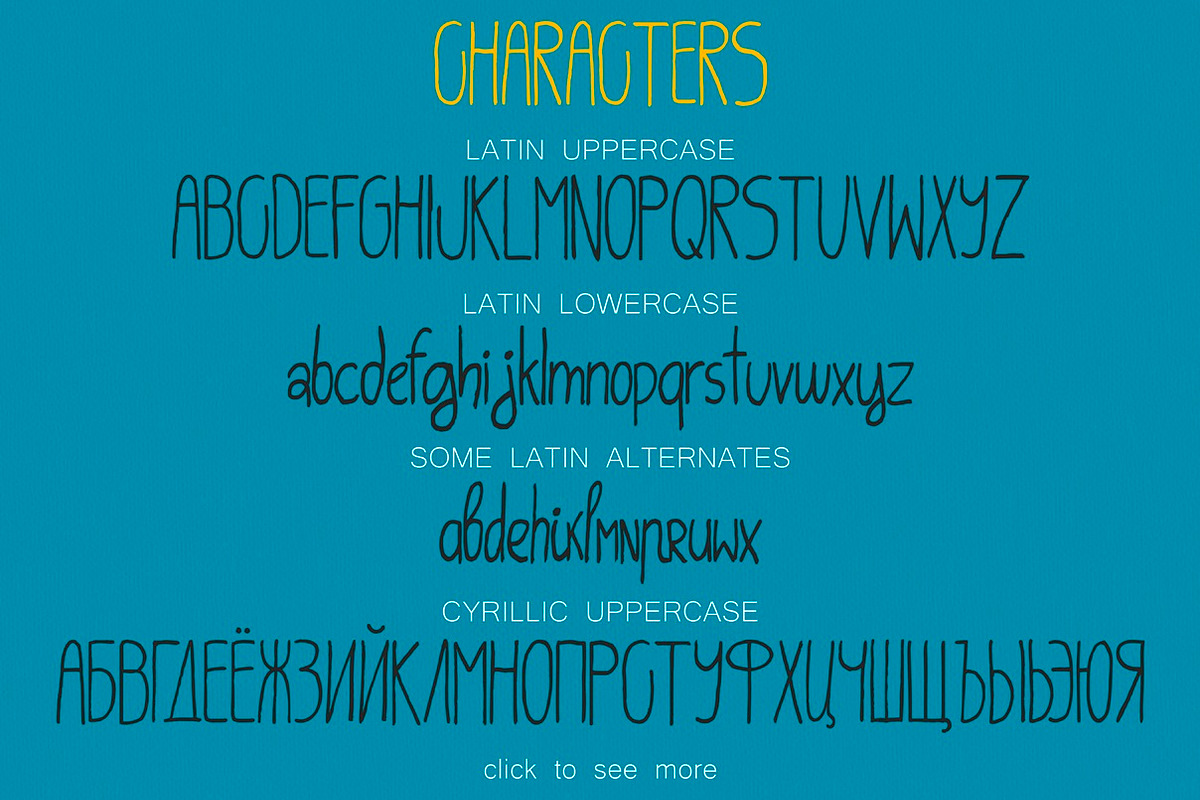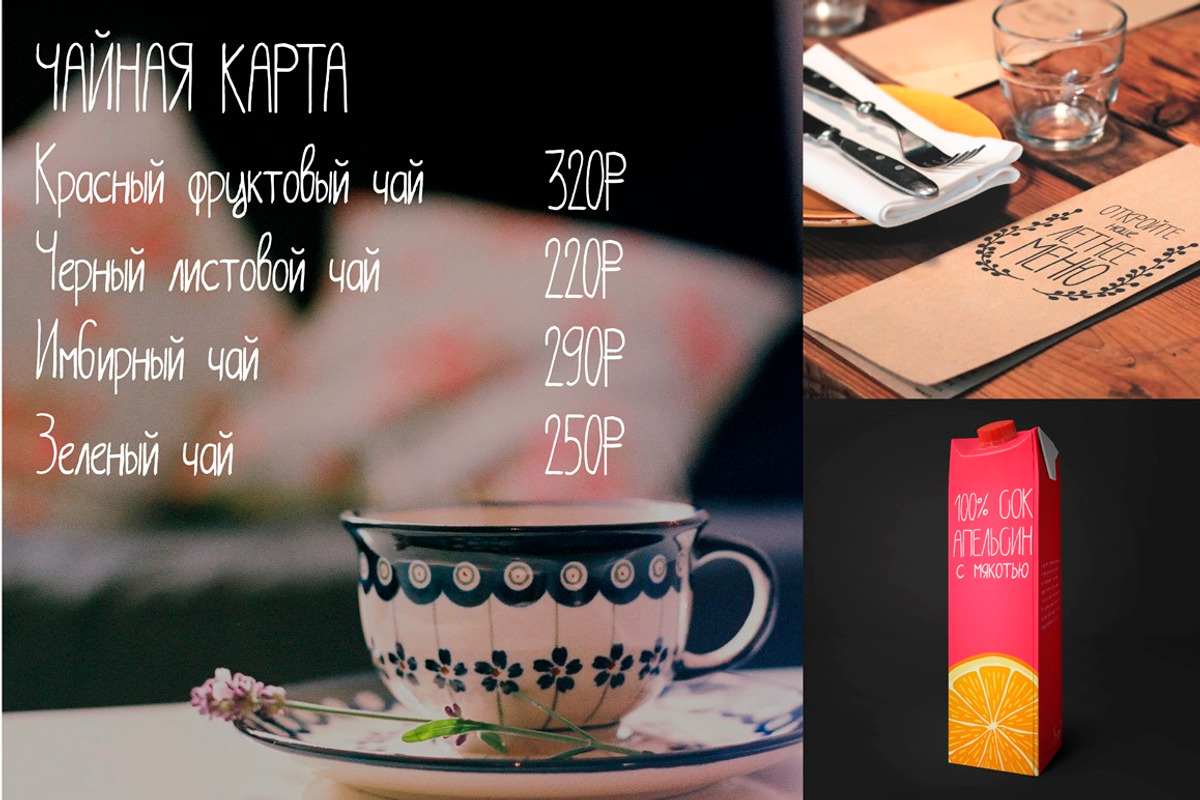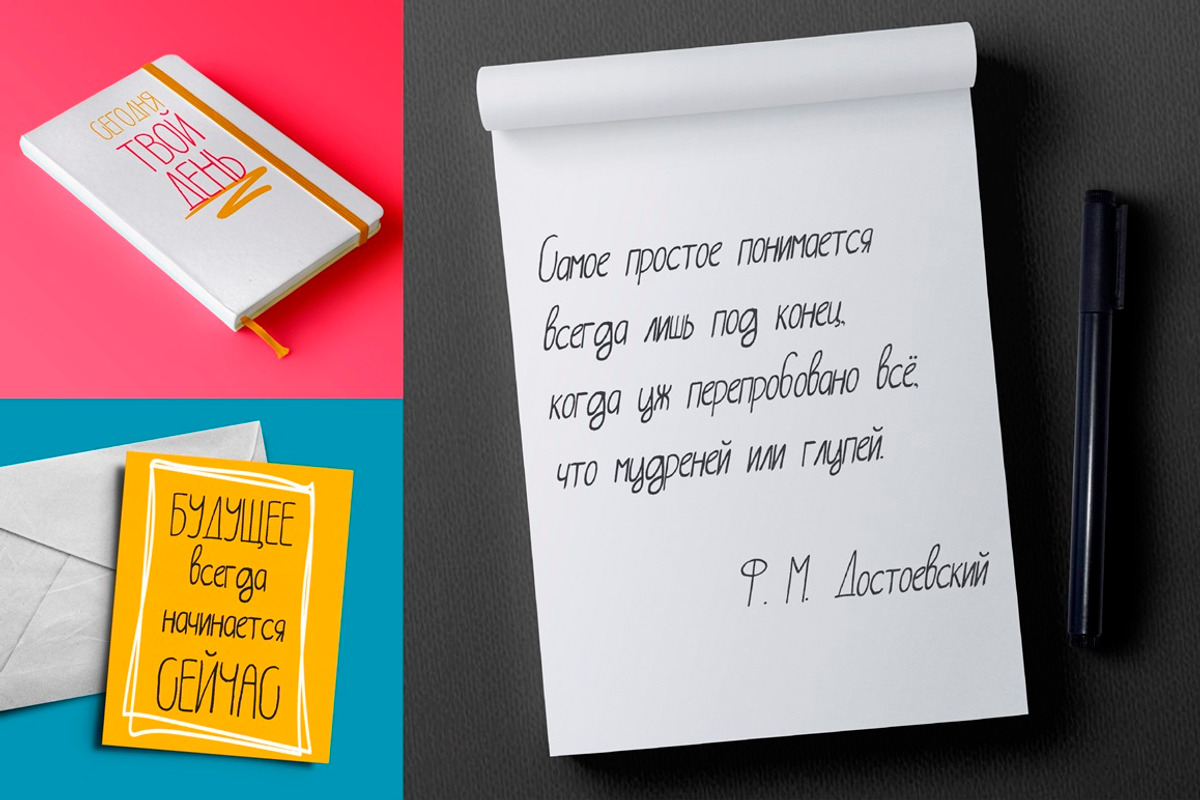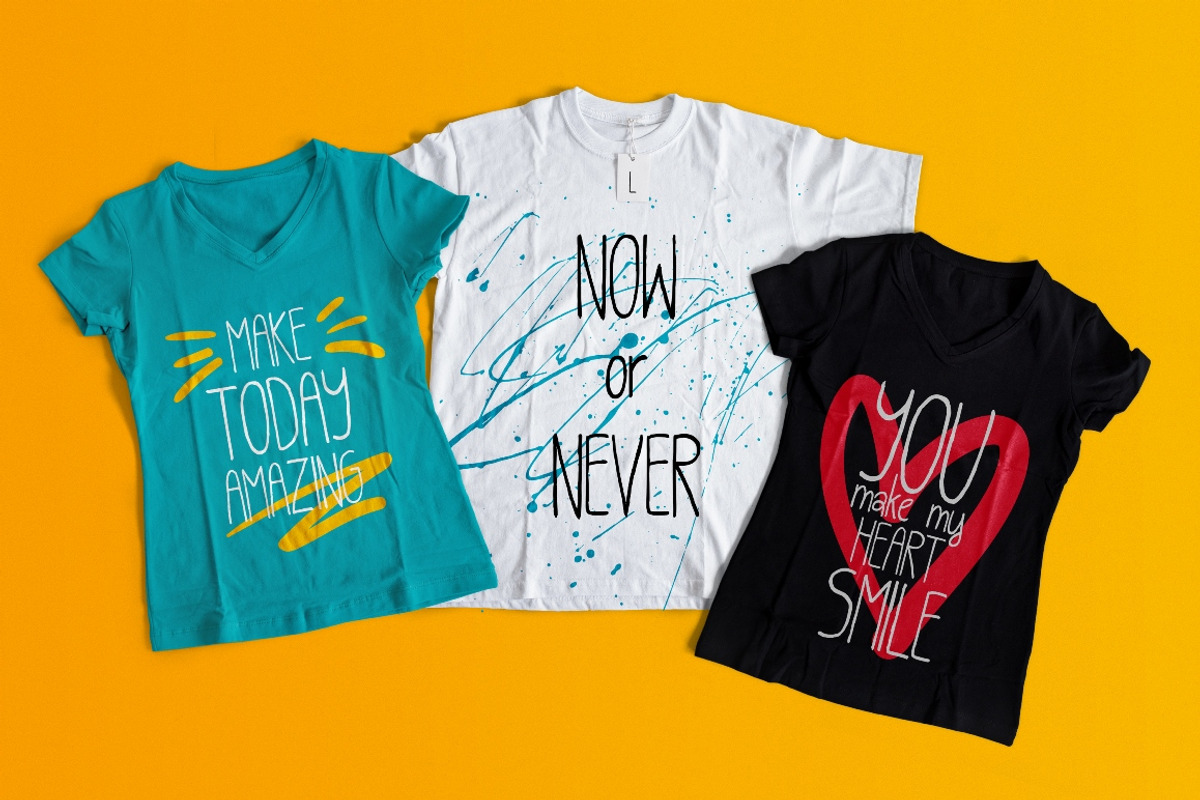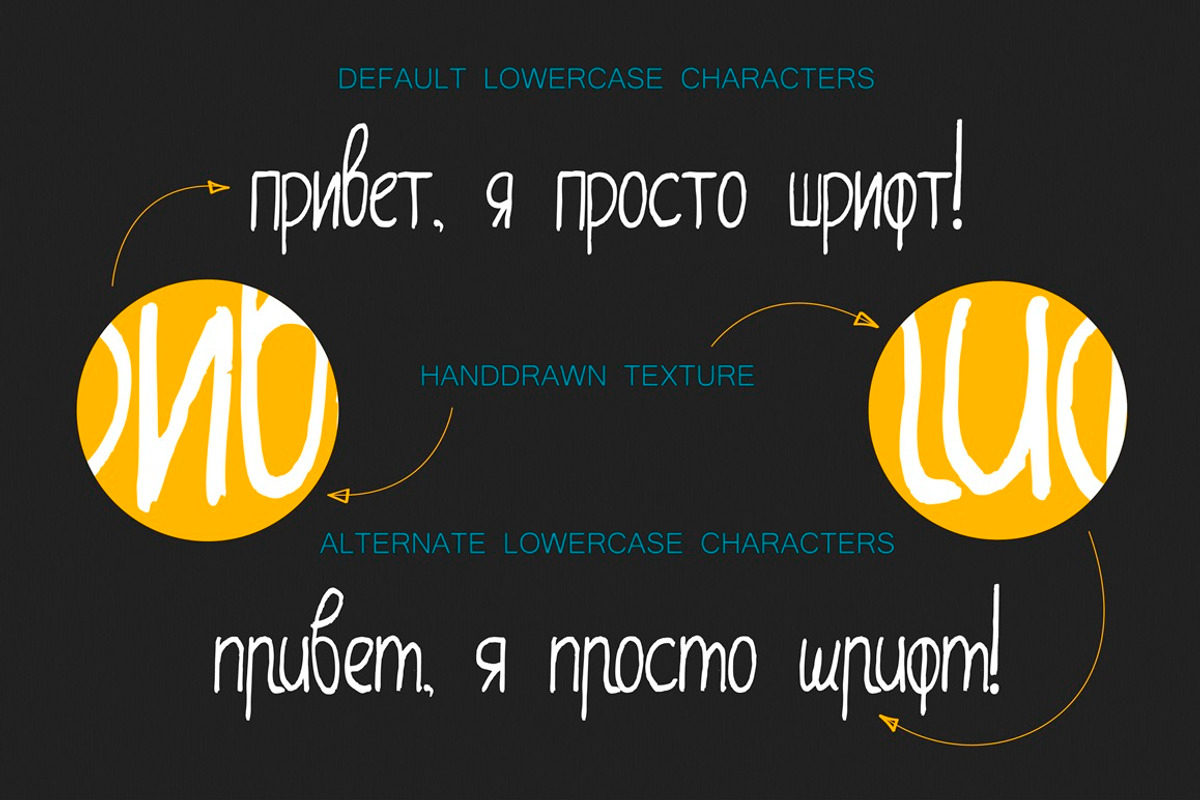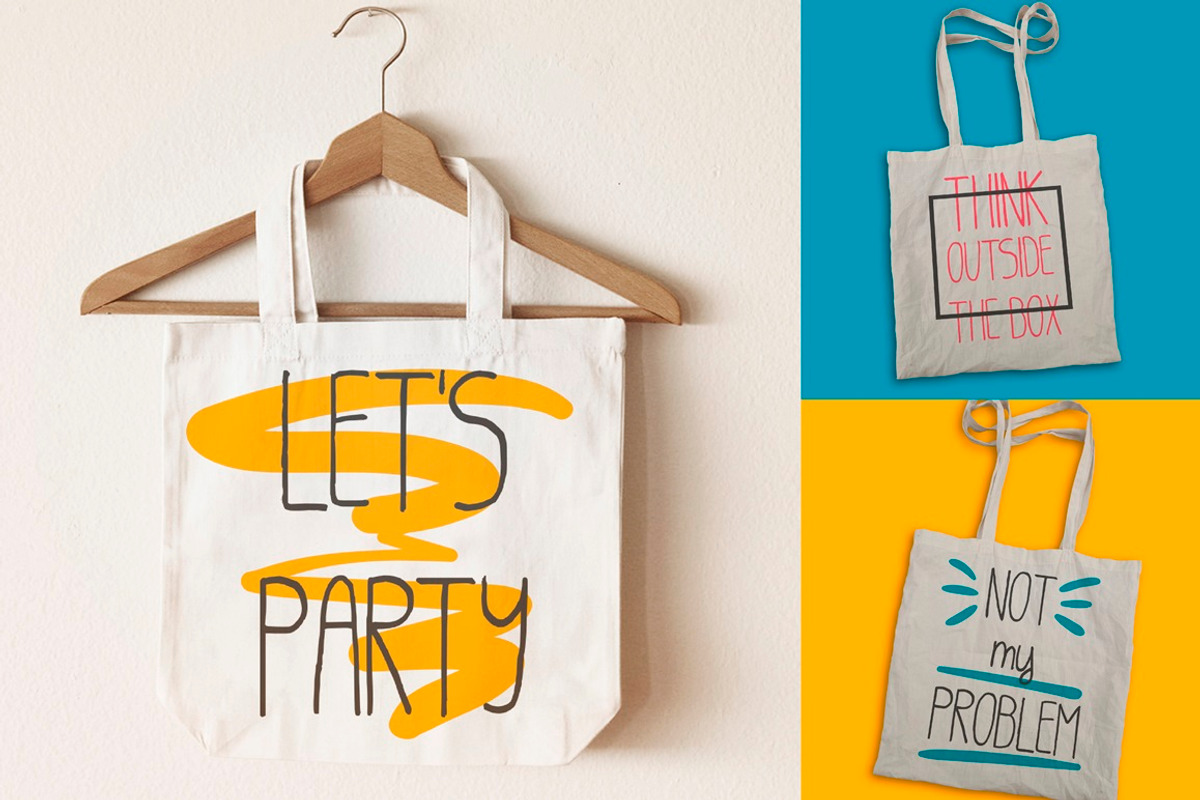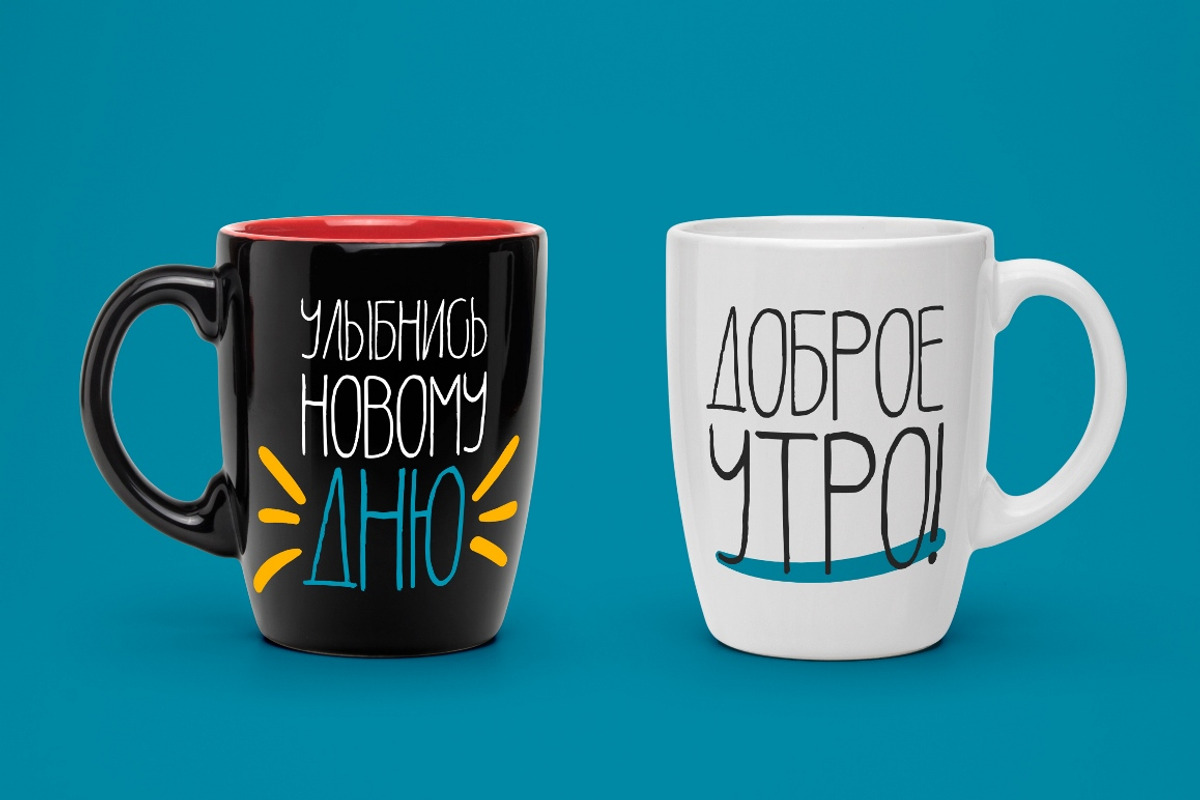
Prosto (Latin+Cyrillic)-simple font
Prosto (Latin+Cyrillic)-simple font by Anastasiia VNSK is a font selected for branding, posters, packaging, typography.
- Prosto Font includes Latin and Cyrillic characters.
- This typeface is multilingual - language support is included.
- Prosto Font includes Latin and Cyrillic characters.
- This typeface is multilingual - language support is included.
- Uppercase letters
- Lowercase letters
- Alternates for lowercase
- Punctuations
- Standard ligatures
- Accented characters ( language support)